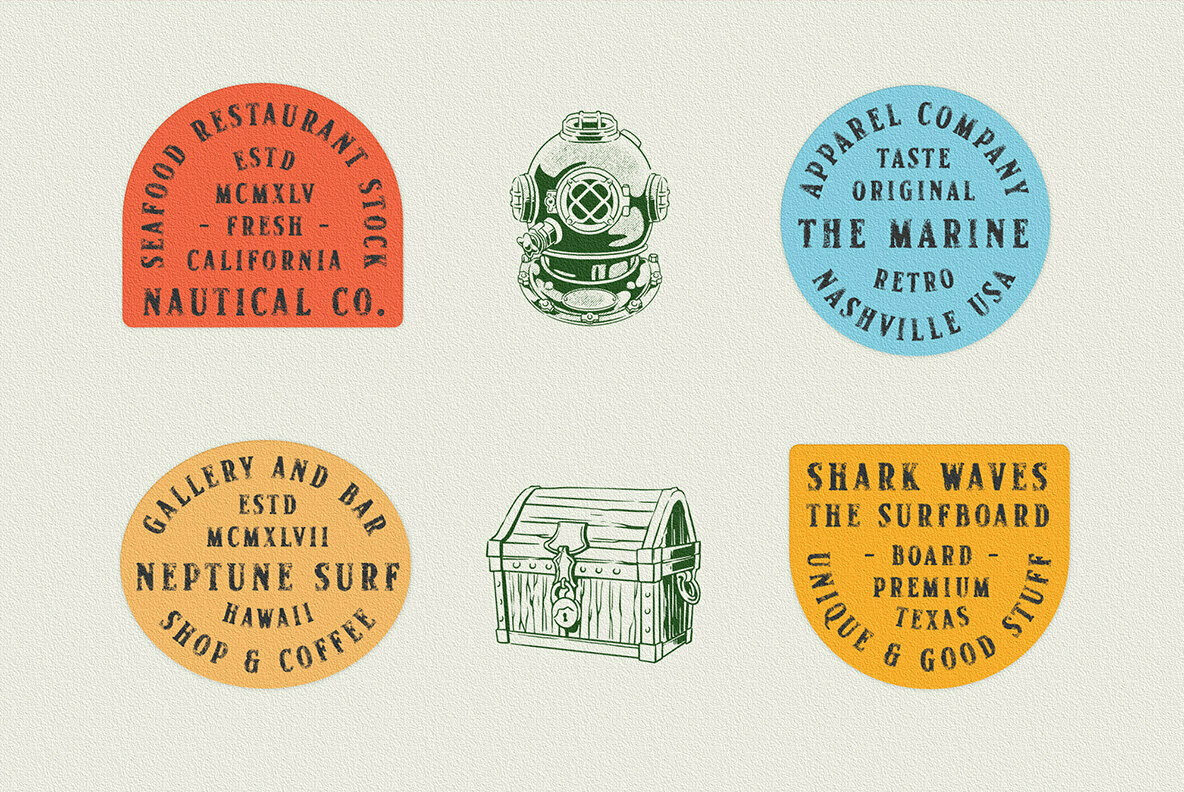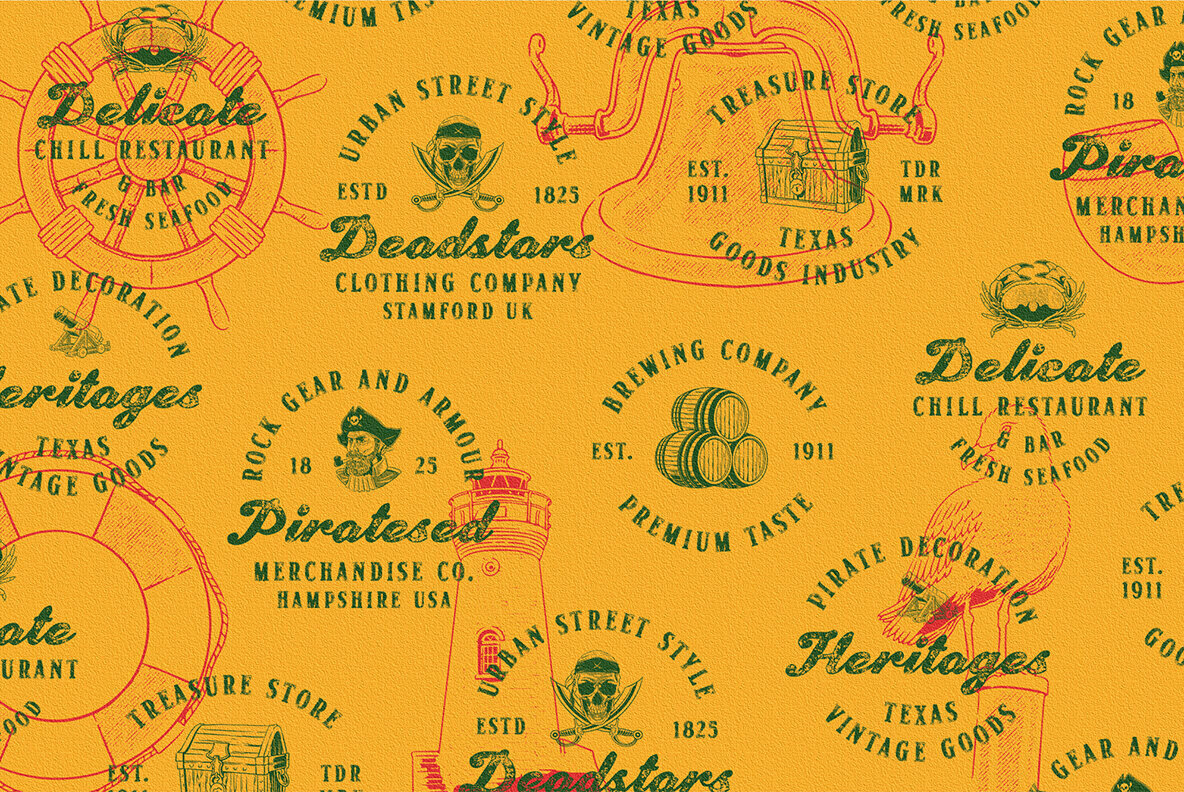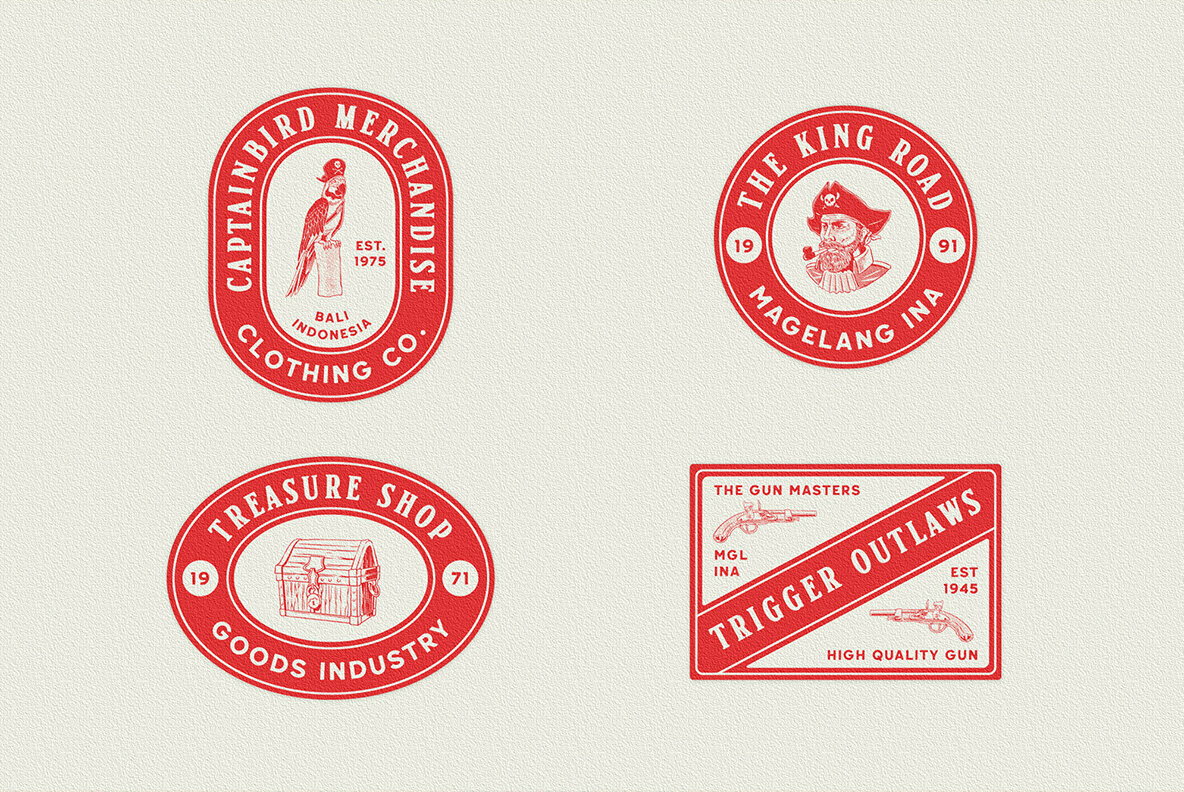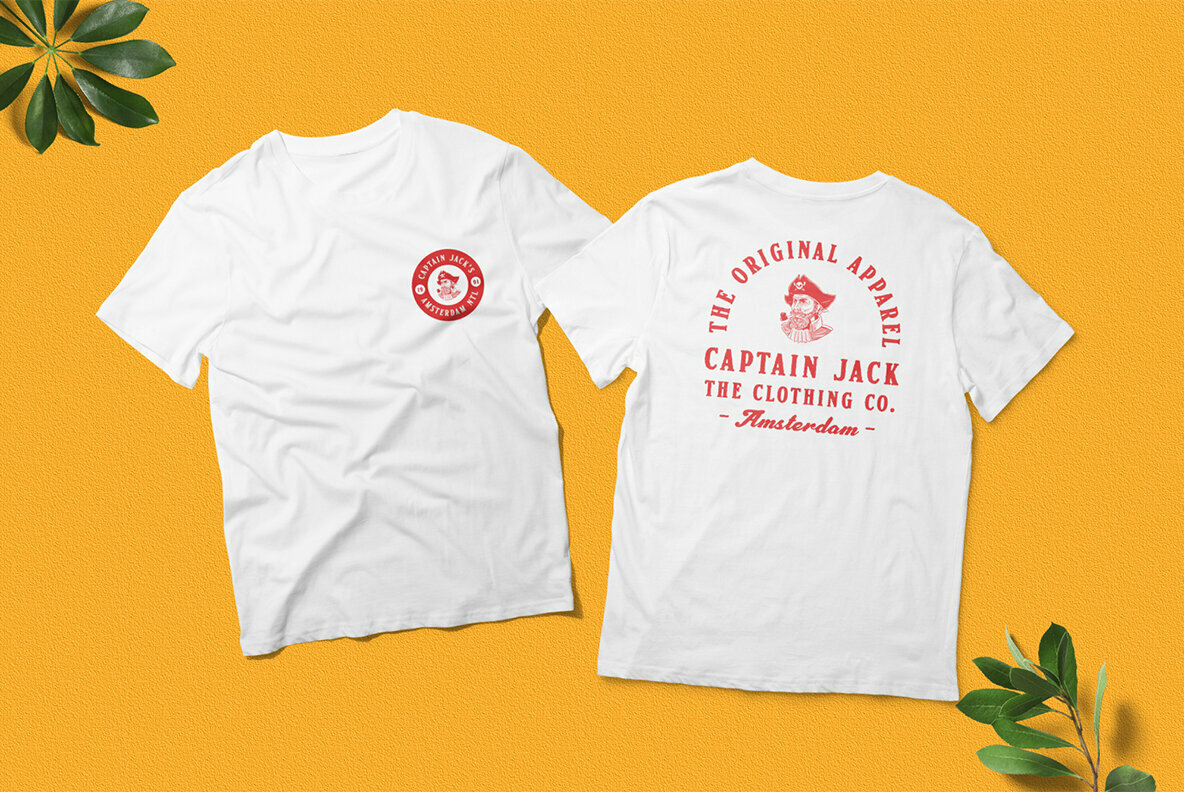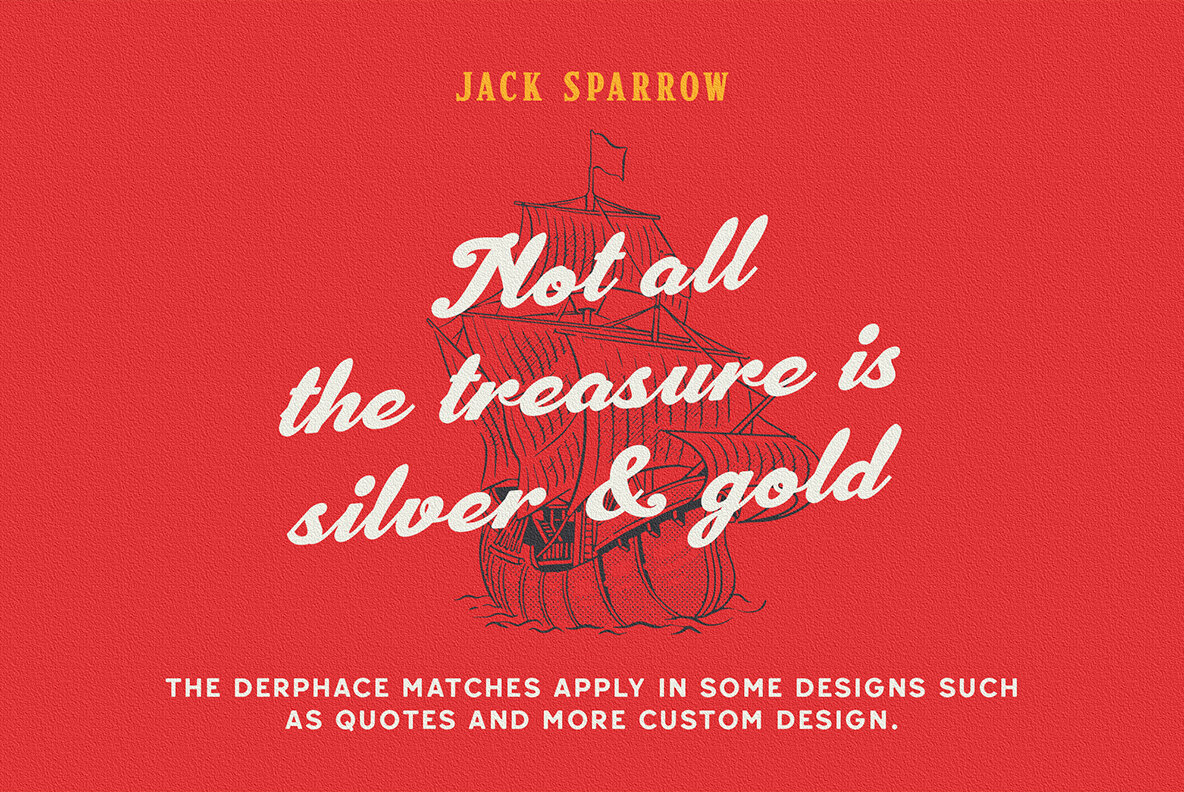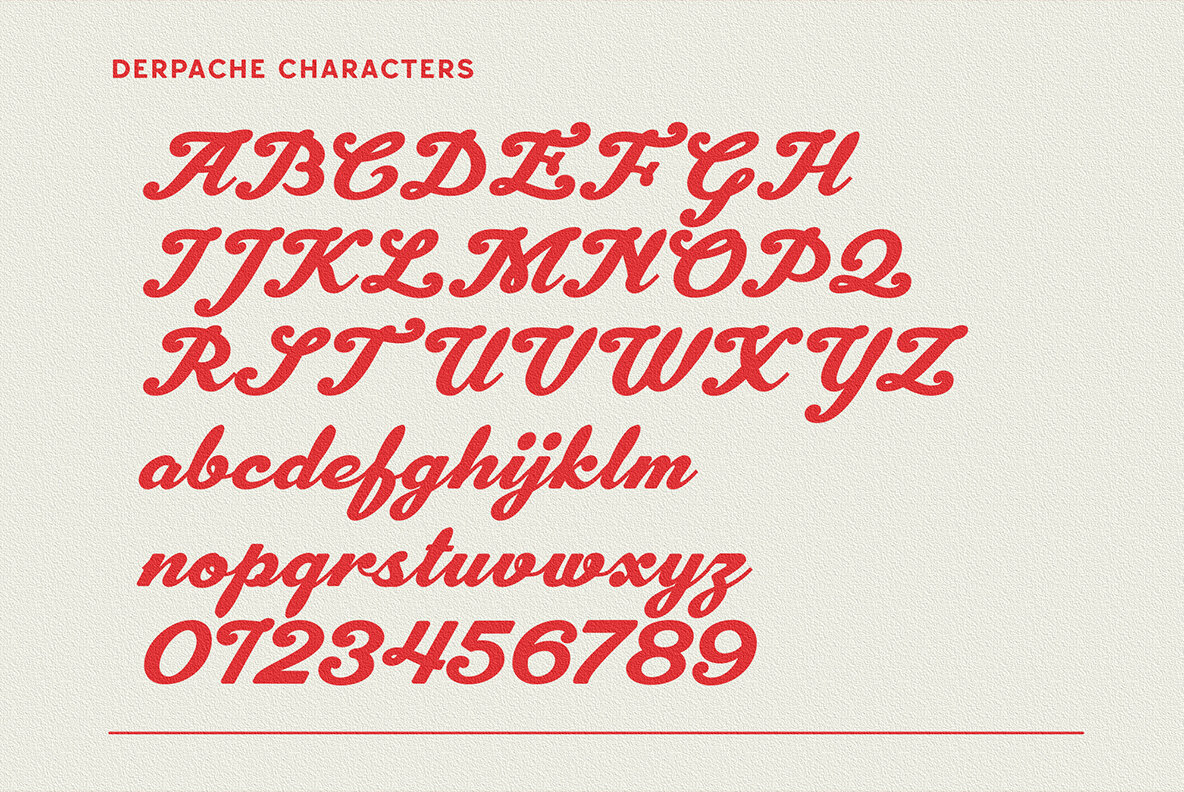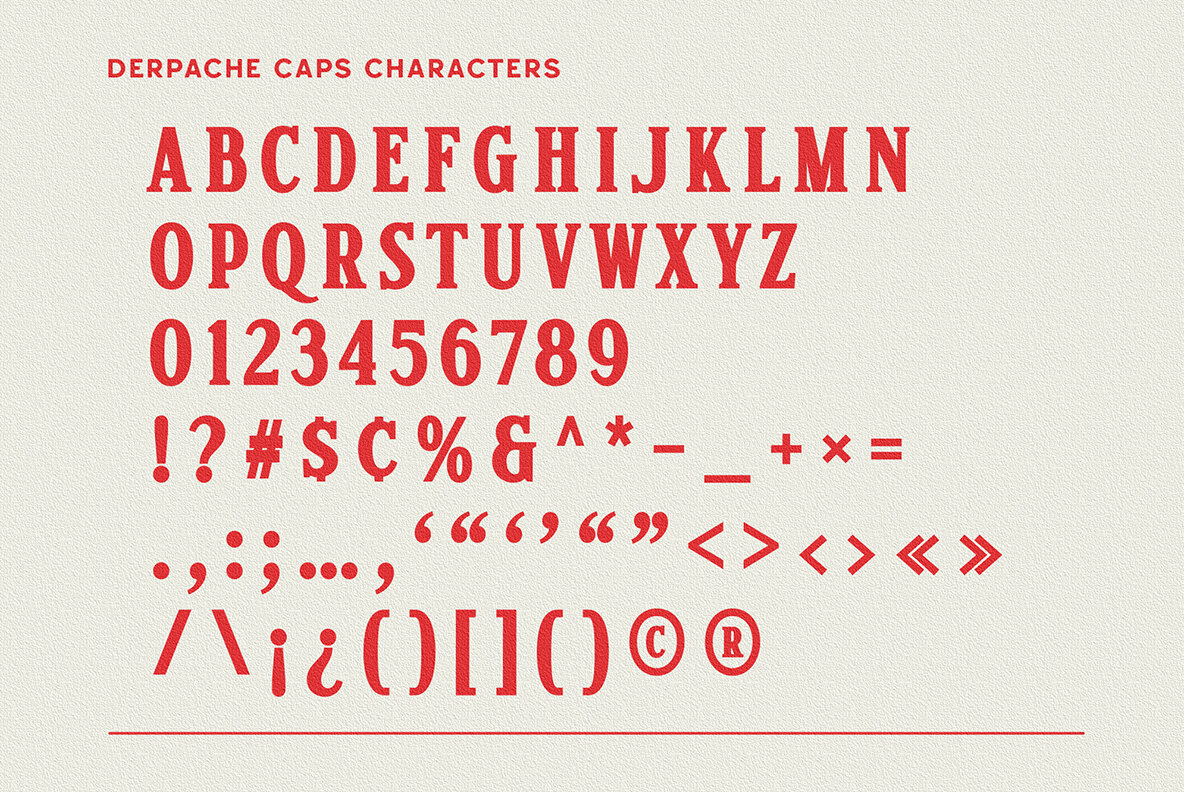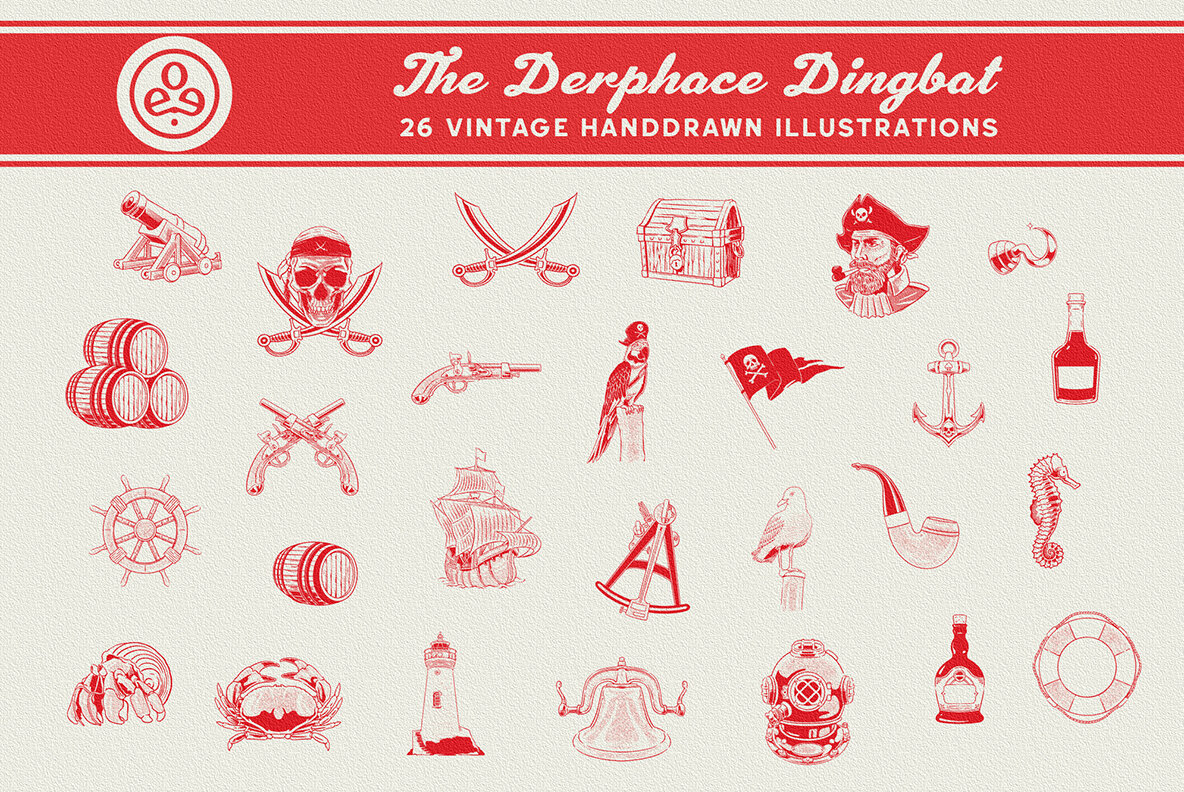
Derphace Font
Discover the charm of Derphace, a font set that draws inspiration from the authentic typefaces found on old labels. This collection, designed by Edi Gunawan, features both script and serif fonts that bring a sense of nostalgia and style to your creative projects. With four distinct styles - regular, rounded, rough, and stamp - each font in the Derphace collection offers unique character. This versatile script font includes alternates, while the serif font stands out with all-caps designs. Ideal for logos, posters, labels, and more, Derphace's nautical and pirate-themed illustrations add a playful touch to any design. Included in the collection are nine distinct fonts, complemented by 26 hand-drawn illustrations in dingbats, making Derphace a comprehensive tool for a wide array of design needs.Derphace: Vintage-Inspired Font Collection